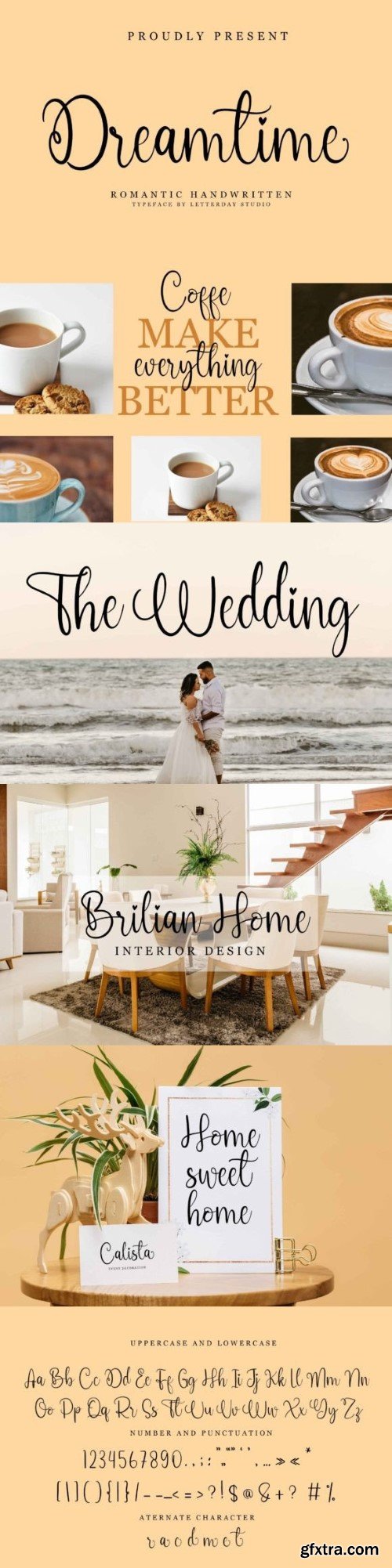
梦境字体
Dreamtime is a handwritten font. This font is very romantic because it uses beautiful characters. This font is suitable for making greeting cards, posts on social media, logos, packaging, and much more. His font is PUA encoded which means you can access all of the amazing glyphs and alternate characters with ease!